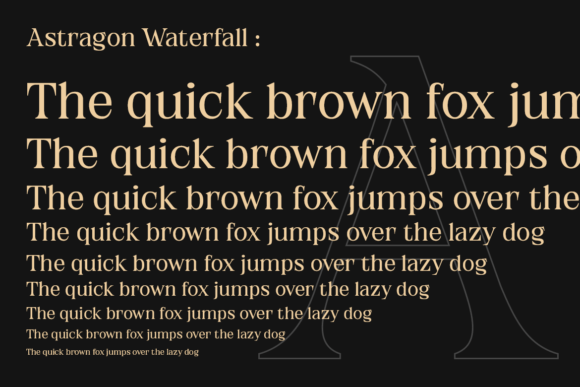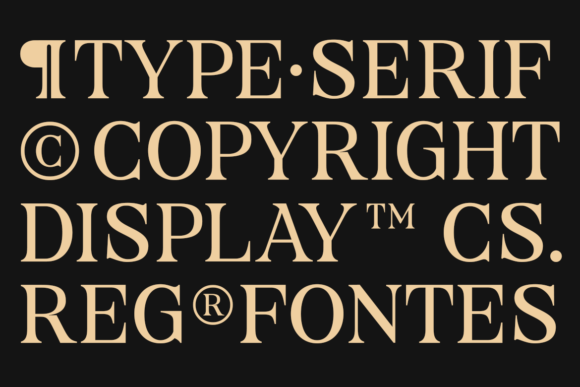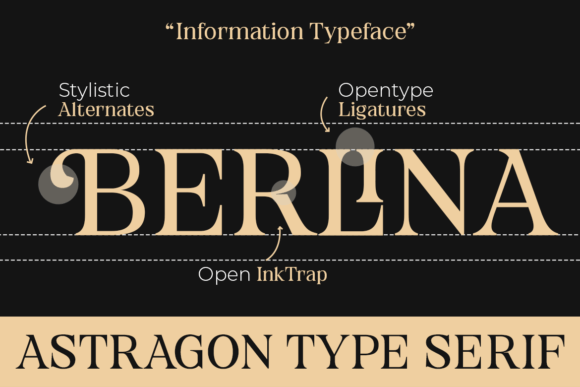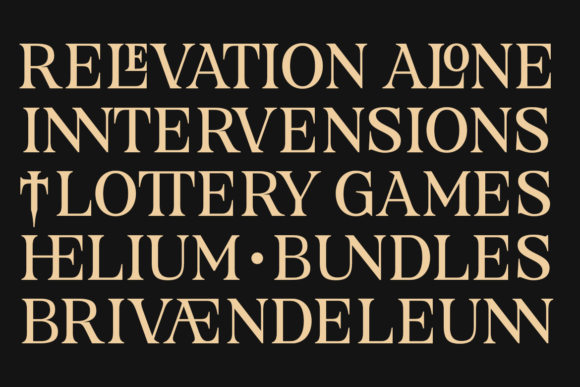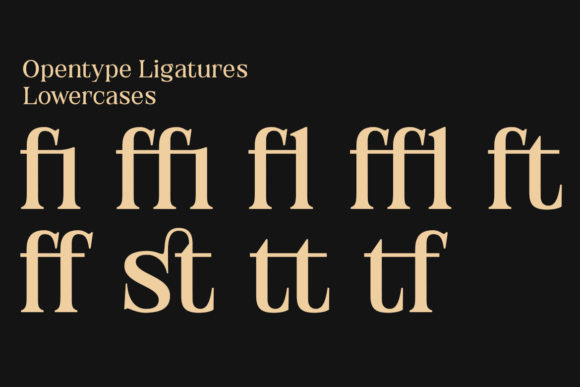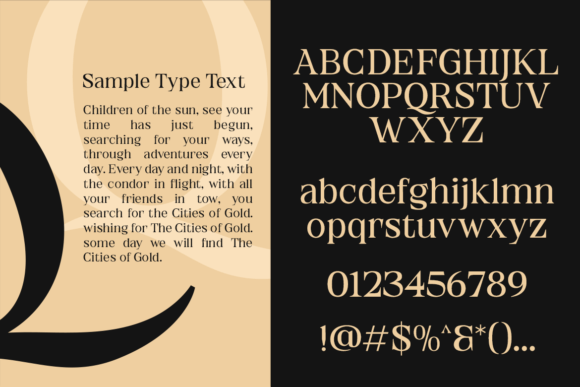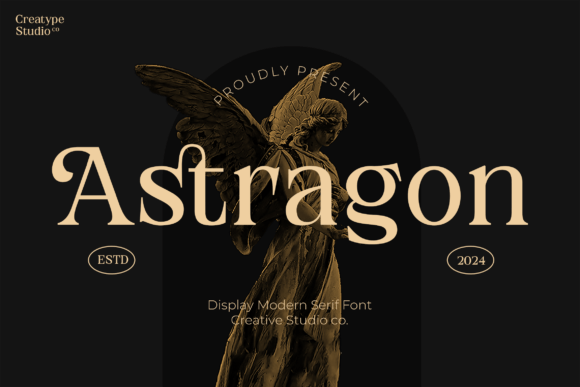
Introducing Astragon Font: Elevate Your Designs with Modern Elegance and Classic Appeal
In the world of typography, fonts play a crucial role in conveying the tone and personality of a design. For creative professionals, finding the perfect font that combines modern sophistication with classic charm can be a daunting task. However, with Astragon Font, your search is over. This stunning display serif font is designed to radiate elegance and refinement, making it perfect for a wide range of creative projects.
What is Astragon Font?
Astragon Font is a beautifully crafted display serif font that strikes the perfect balance between modern elegance and classic appeal. Its refined serifs and balanced lines make it an ideal choice for designers looking to add a touch of sophistication and style to their work. Whether you’re creating greeting cards, packaging, brand identities, or posters, Astragon Font is the perfect companion to help you achieve your design goals.
Key Features of Astragon Font
• PUA Encoded: Astragon Font is PUA (Private Use Area) encoded, which means you can easily access all the amazing glyphs and ligatures without any hassle. This feature allows you to explore the font’s full potential and create unique, eye-catching designs.
• Display Serif Font: With its classic serif design, Astragon Font exudes elegance and refinement. The font’s serifs add a touch of sophistication, making it perfect for high-end designs and luxury brands.
• Balanced Lines and Refined Serifs: The font’s balanced lines and refined serifs ensure that your designs look polished and professional. This feature makes Astragon Font suitable for a wide range of applications, from print to digital media.
• Versatile: Astragon Font is incredibly versatile, making it perfect for various design projects, including greeting cards, packaging, brand identities, posters, and more.
Why Choose Astragon Font?
With so many fonts available in the market, why choose Astragon Font? Here are a few compelling reasons:
• Unique and Eye-Catching: Astragon Font’s distinctive design ensures that your designs stand out from the crowd. Its elegant and refined appearance makes it perfect for luxury brands, high-end products, and sophisticated designs.
• Easy to Use: With its PUA encoding, Astragon Font is easy to use, even for designers who are new to font editing software. You can access all the glyphs and ligatures with ease, making the design process seamless and efficient.
• High-Quality: Astragon Font is designed to deliver high-quality results, ensuring that your designs look professional and polished.
Use Cases for Astragon Font
Astragon Font is incredibly versatile, making it suitable for a wide range of design projects. Here are some use cases to get you started:
• Greeting Cards: Add a touch of elegance to your greeting cards with Astragon Font. Its refined serifs and balanced lines make it perfect for creating beautiful, high-end cards.
• Packaging: Elevate your packaging designs with Astragon Font’s sophisticated and modern appeal. Its classic serif design ensures that your products stand out on store shelves.
• Brand Identities: Create a lasting impression with Astragon Font’s elegant and refined appearance. Its versatility makes it perfect for luxury brands, high-end products, and sophisticated designs.
• Posters: Make a statement with Astragon Font’s bold and eye-catching design. Its classic serif appearance ensures that your posters grab attention and leave a lasting impression.
Font Name Astragon Font
Author CreatypeStudio
In conclusion, Astragon Font is a stunning display serif font that combines modern elegance with classic appeal. Its refined serifs, balanced lines, and PUA encoding make it perfect for a wide range of creative projects. Whether you’re a designer, crafter, or DIY enthusiast, Astragon Font is an excellent choice for adding a touch of sophistication and style to your work. With its versatility, ease of use, and high-quality design, Astragon Font is sure to become a staple in your font collection.